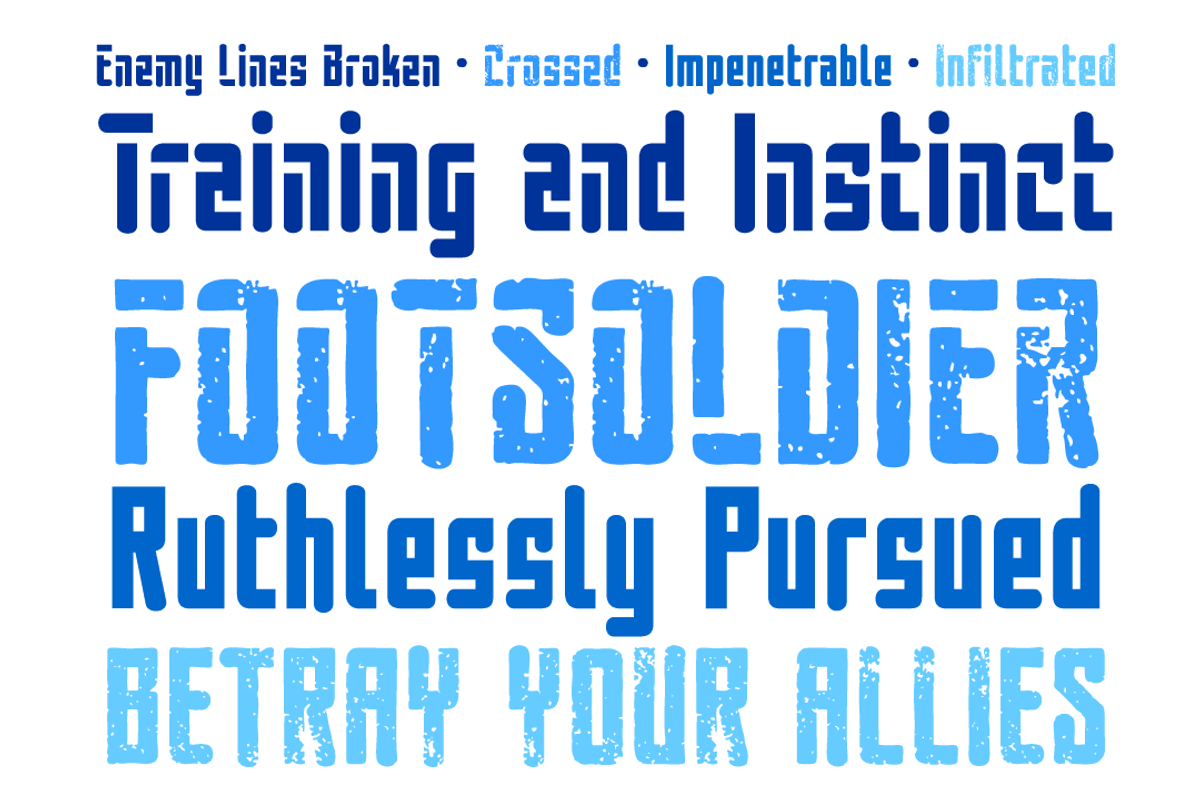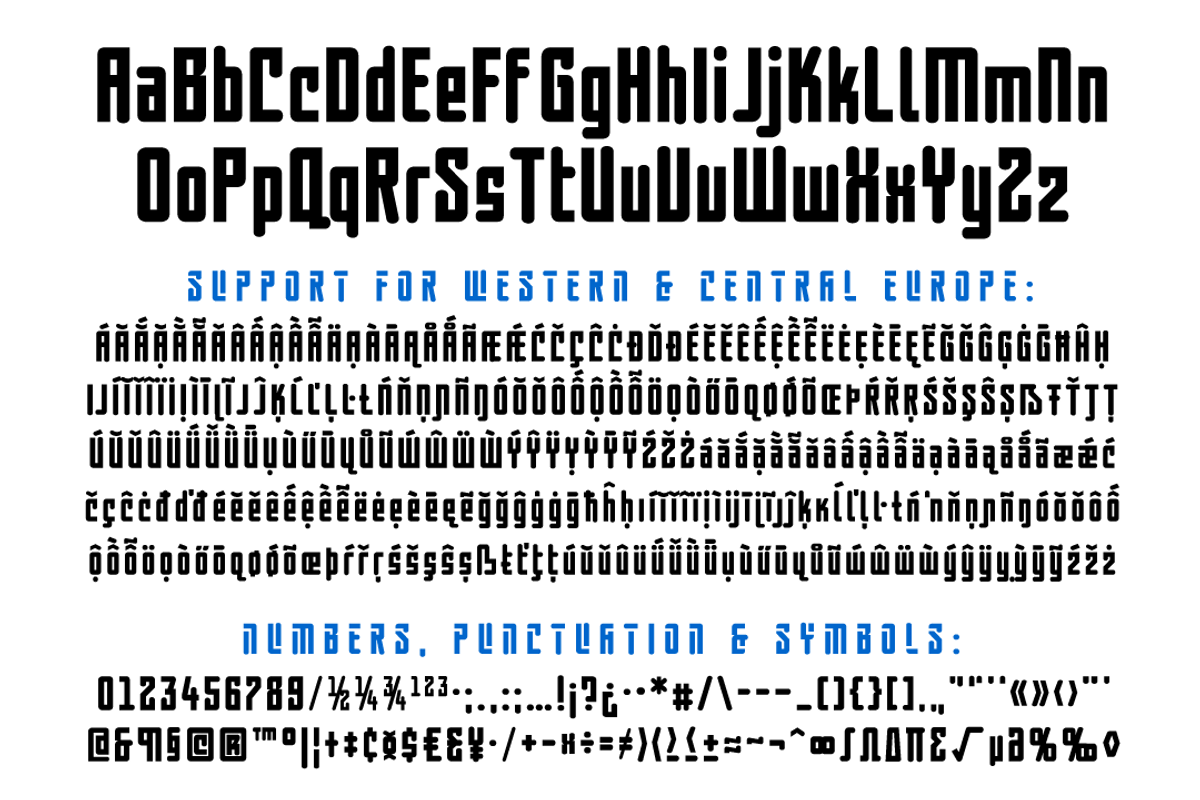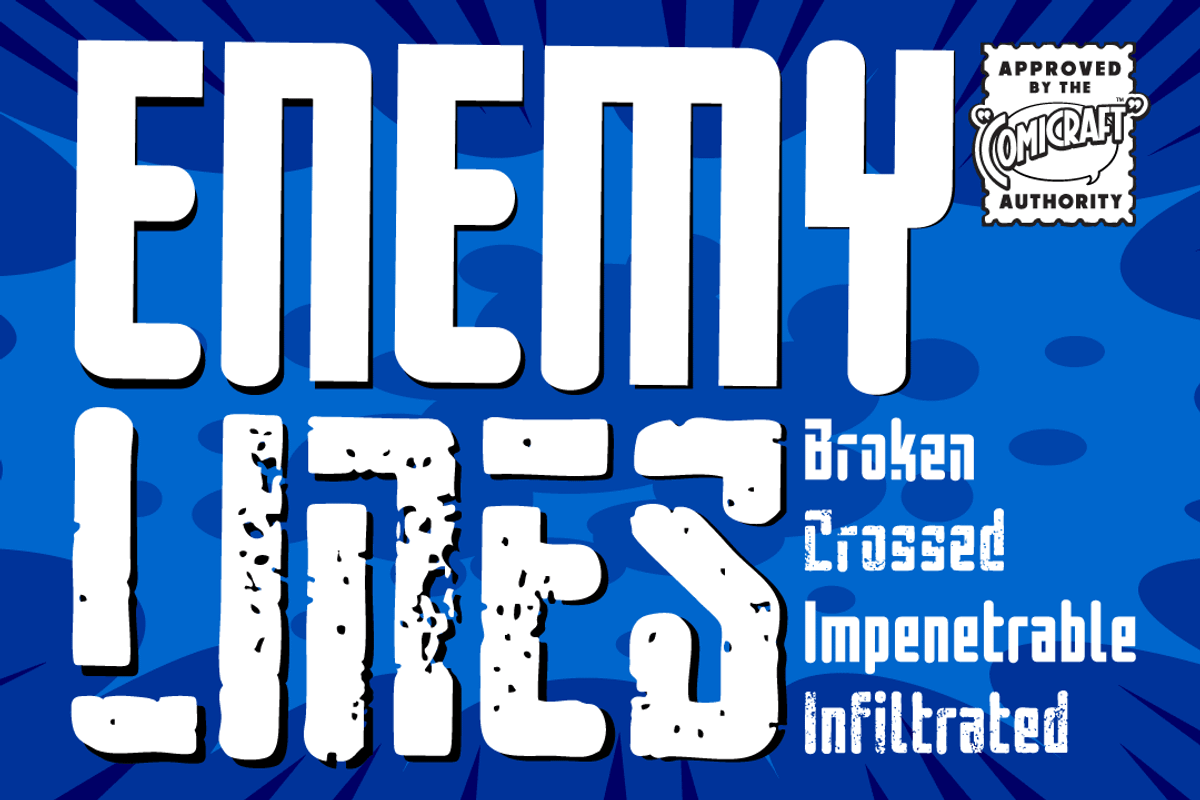
Enemy Lines - grungy sci-fi font
You've been shot down over enemy territory and you've managed to survive for weeks thanks to your training and instincts*... but now you're being ruthlessly pursued by MAPPO's footsoldiers... The ELEPHANTMEN! Will your commanding officer go against orders in an attempt to rescue you or will his mission be abruptly aborted, stranding you behind ENEMY LINES? In order to survive, you may have to betray your own rebel forces, your allies and the entire free world!
The future of mankind hangs in the balance! Failure is not an option! Bummer.